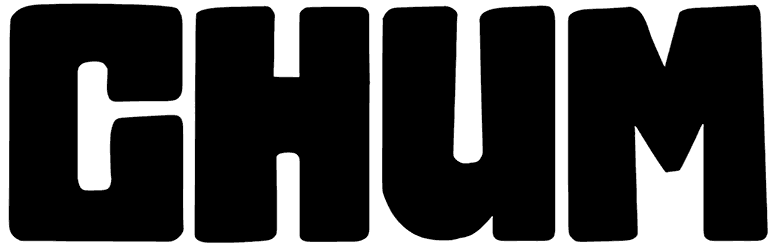
Chum Font
When it comes to grabbing your audience’s attention, nothing beats the Chum font. This powerful, impossible-to-ignore font is a great choice for signs, headlines, posters, and any other distinctive design.
The thick and rounded edges of this 90s cartoon font, which does not support uppercase letters, give it a fun and suitable design for children. In addition, its adventurous mode, which does not take itself too seriously, means that you can use it for any carefree design.